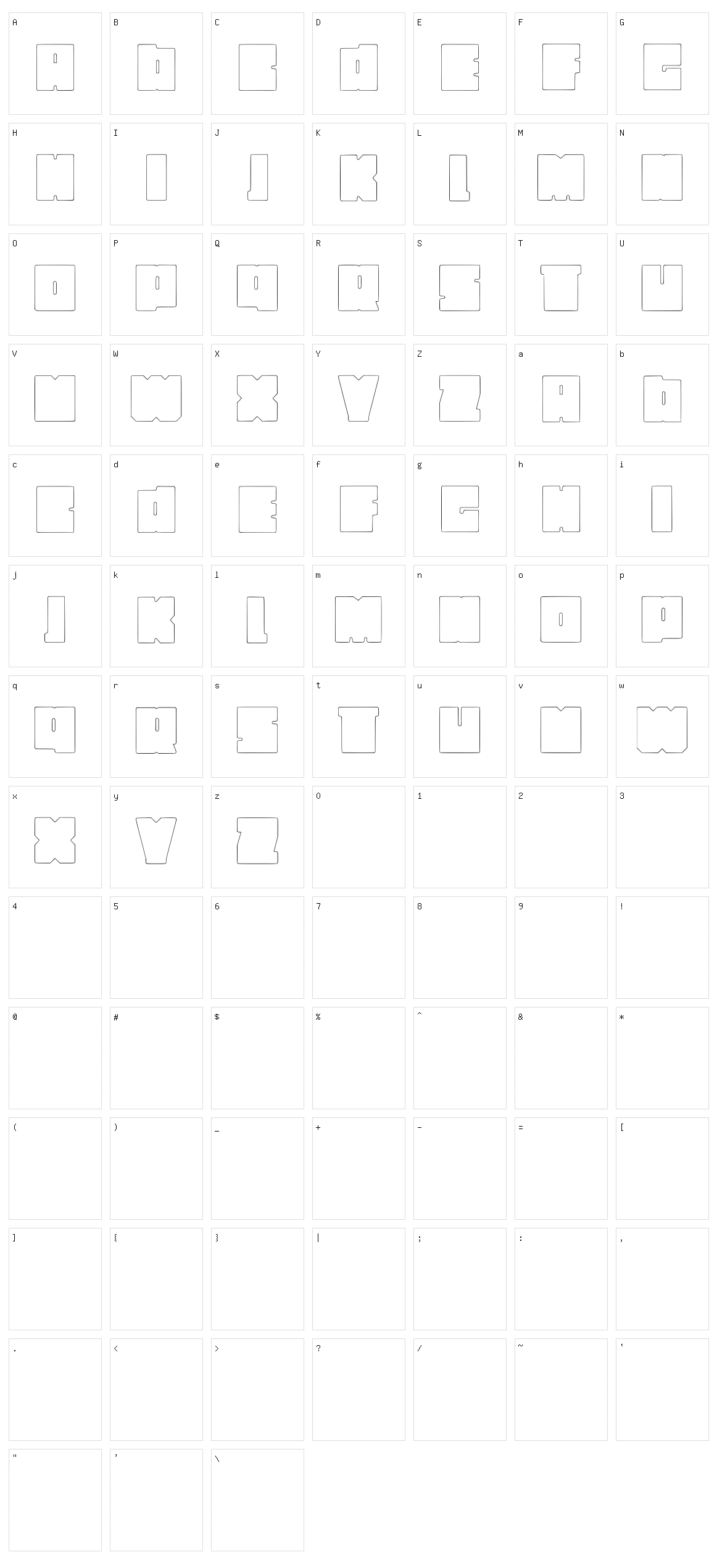
The free font Infinity is carefully designed by Joep van der Poel, showcasing a thoughtful balance of creativity and usability and falls under the Square font style. When you download the ZIP file, it contains only 32.7 KB of font files, making it lightweight and quick to download. Please review the license details below to understand permitted usage and distribution rights. If license information is not available, we recommend using this font for personal projects only or contacting the author directly for commercial usage permissions.